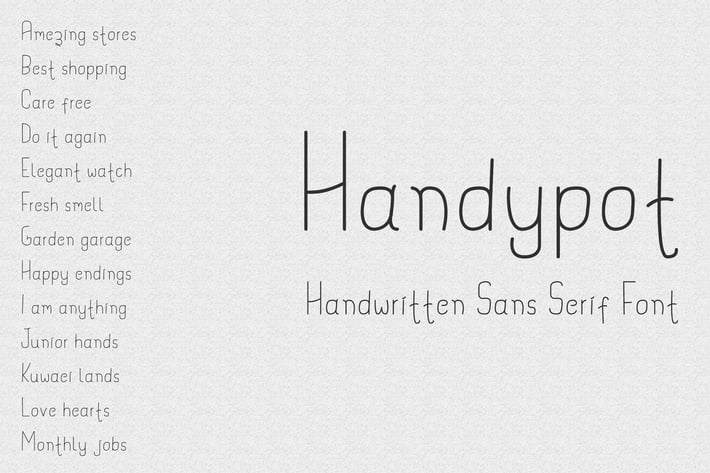
Handypot - Handwritten Sans Serif Font
Handypot is Playfull, simple and regular type monoline font - it will be good use for kids games, apps, casual writings, books and invitations and more.